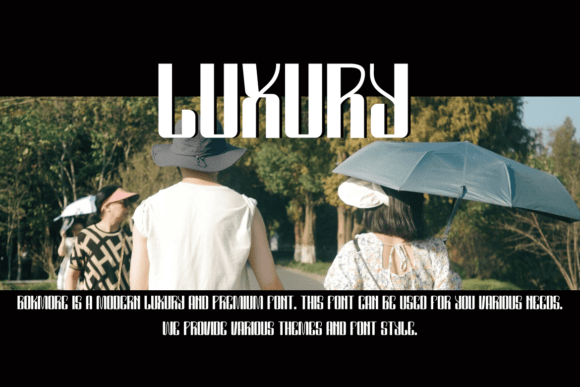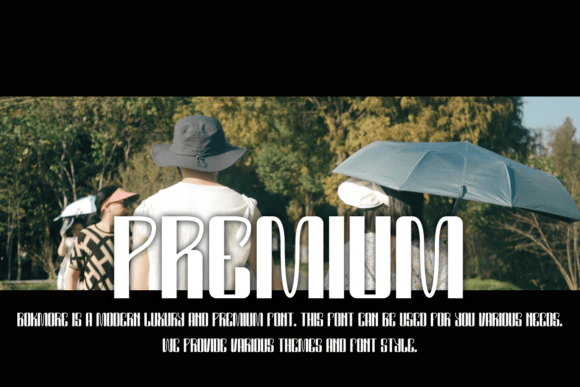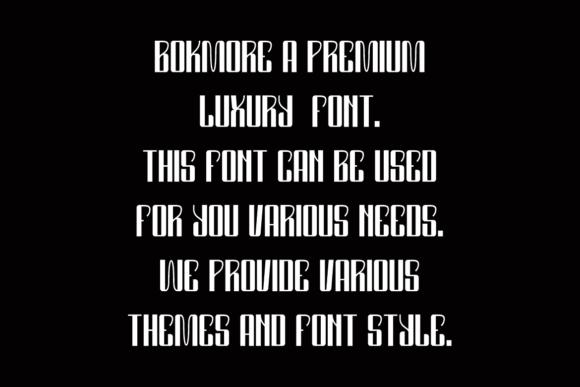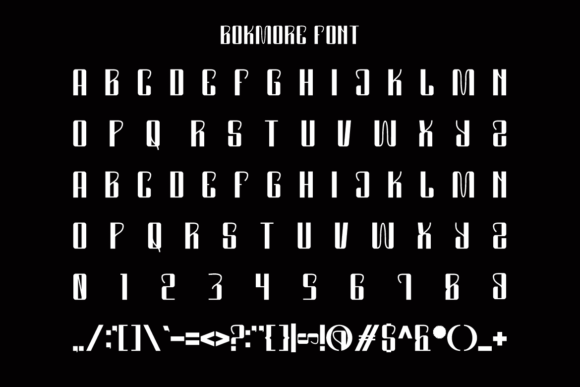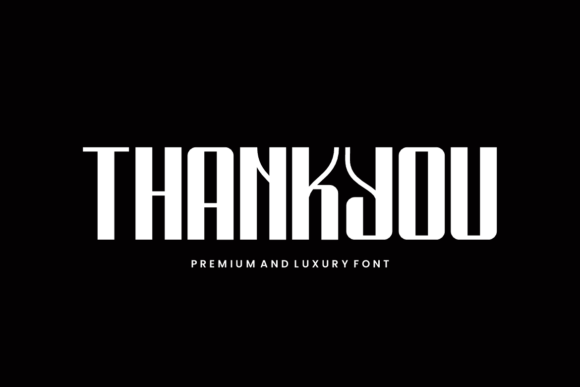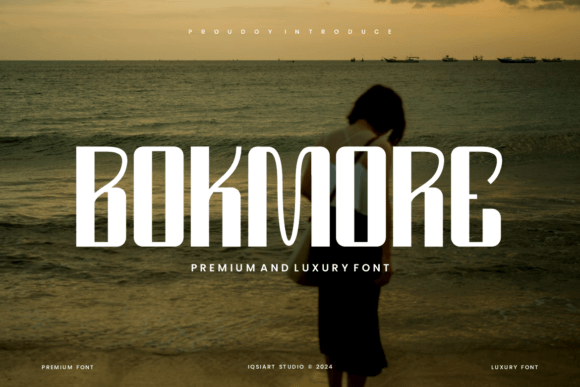
The Elusive Font: A Designer’s Quest for Luxury and Elegance
I still remember the project like it was yesterday. A high-end fashion brand needed a logo and branding materials that exuded luxury and sophistication. As a designer, I knew I had to find the perfect font to make their vision come to life. After hours of scouring through font libraries and testing various options, I stumbled upon **Bokmore Font**. It was love at first sight! ✨ The clean, modern sans-serif design and elegant lines immediately caught my attention. In this article, I’ll share my experience with Bokmore, its features, and how to make the most of this stunning font.
An Honest Review of Bokmore Font
What I Love About Bokmore
- ✅ Clean and Elegant Design: Bokmore’s modern sans-serif design makes it perfect for luxury brands and high-end projects.
- ✅ Readability and Sophistication: The font is both stylish and readable, making it ideal for logos, headlines, and upscale branding.
- ✅ Versatility: Bokmore can be used for a wide range of projects, from fashion and beauty to technology and finance.
- ✨ Attention to Detail: The font’s creator has paid close attention to even the smallest details, making Bokmore a joy to work with.
While Bokmore is an excellent font, it’s not without its quirks. ⚠️ Some users may find that:
- 🤔 Limited Character Set: Bokmore might not have an extensive character set, which could limit its use in certain projects.
- ⚠️ Not Suitable for Body Text: Due to its elegant and stylized design, Bokmore might not be the best choice for body text or long-form content.
The Story Behind Bokmore Font
Bokmore was designed by a team of typographers who aimed to create a font that embodies luxury and sophistication. Inspired by modern sans-serif designs, the creators of Bokmore sought to craft a font that’s both elegant and readable. The result is a stunning font that’s perfect for high-end projects and luxury brands.
| What is Bokmore Font? | Bokmore is a modern sans-serif font designed for luxury brands and high-end projects. |
| Is Bokmore suitable for body text? | No, Bokmore is best used for headlines, logos, and upscale branding due to its elegant and stylized design. |
| Does Bokmore support OpenType features? | Yes, Bokmore supports OpenType features, allowing you to add more style and personality to your design. |